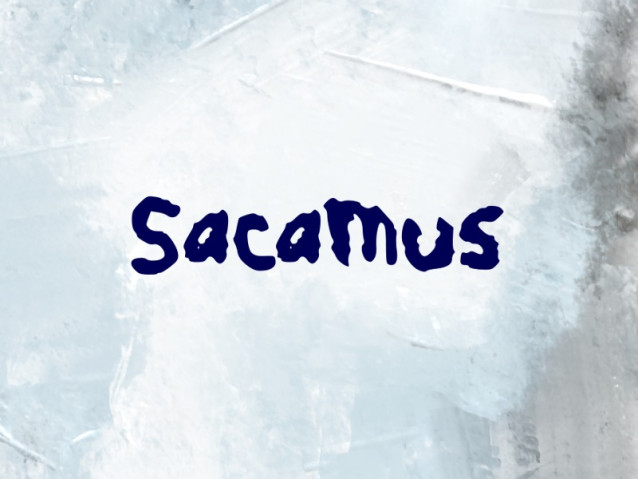
Sacamus Font
Sacamus Font is a unique display font that seamlessly blends organic brushwork with a modern, edgy aesthetic. Characterized by its irregular, hand-drawn strokes and raw texture, this font provides an authentic and personal touch to any design. It is an excellent choice for creative branding, eye-catching headlines, and expressive poster designs that require a standout personality.